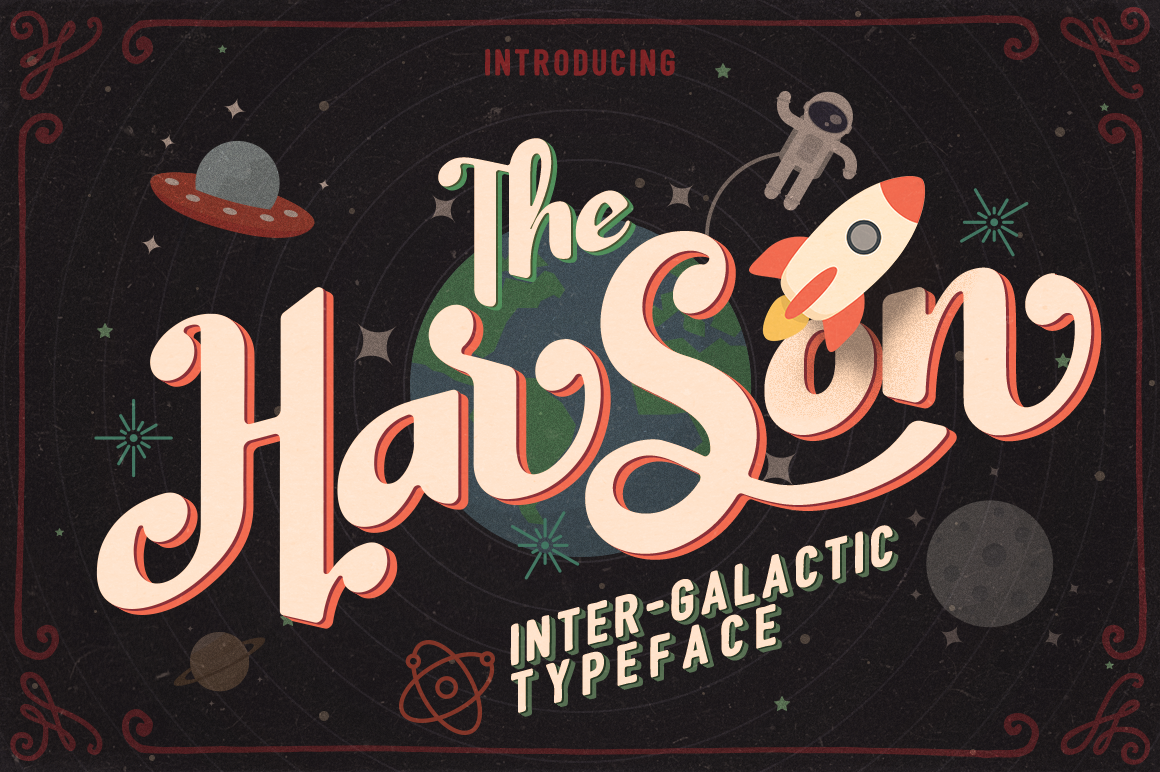
Harson Inter-Galactic Typeface
Please introduce you to our first typeface: HARSON.
This font was inspired by vintage magazine and old movie titles. Harson comes with uppercase, lowercase, numerals, punctuations, currency symbols and many variations on each characters include opentype alternates, and common ligatures. Also supported with Contextual Alternate so the alternate characters will generated automatically on every final character when typing a word. Harson perfect to be use for Logotype, Letterhead, Poster, Apparel Design, Label and etc.
- Regular, Italic, Soft and Soft-Italic style.
- Standard characters set (uppercase, lowercase, numerals, punctuations, and currency symbols).
- Multilangual (Accented characters available).
- Common Ligatures.
- Uppercase Alternates (best used as opening character).
- Lowercase Alternates (best used as final character).
- Contextual Alternates (auto generate final lowercase alternate when typing).